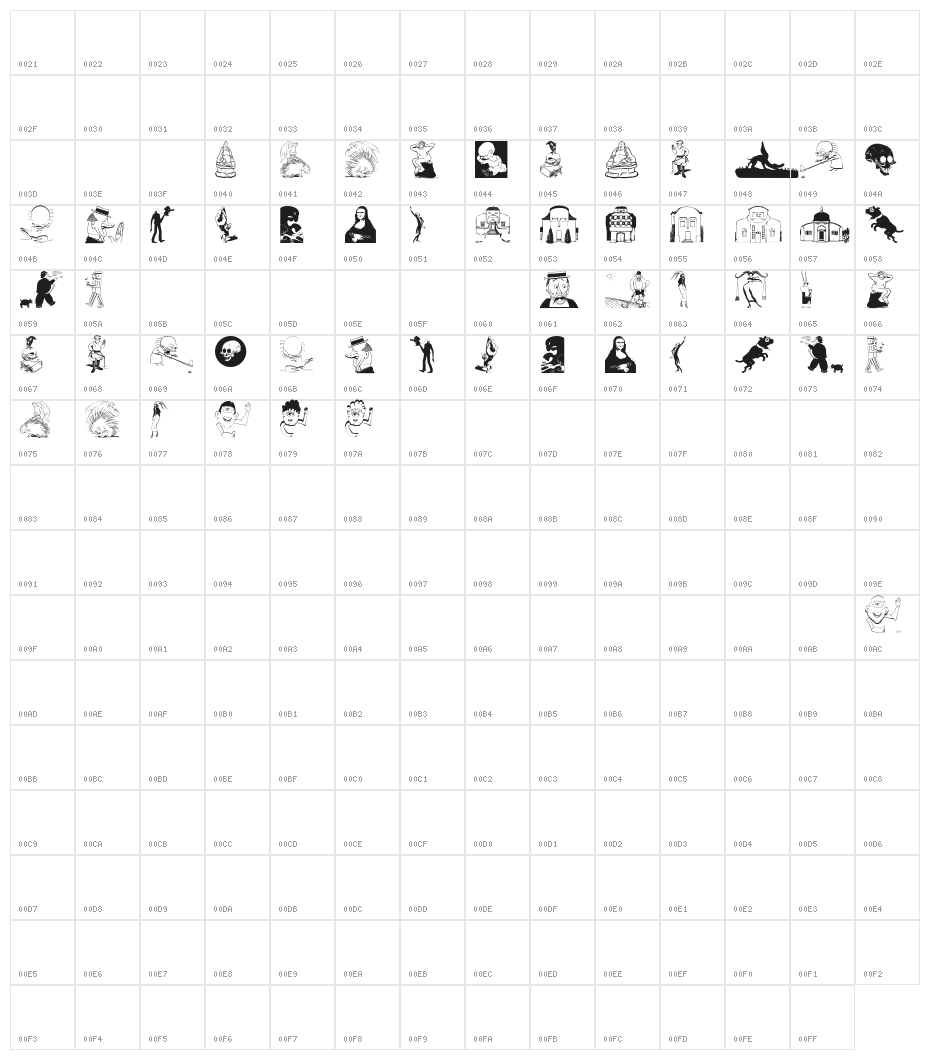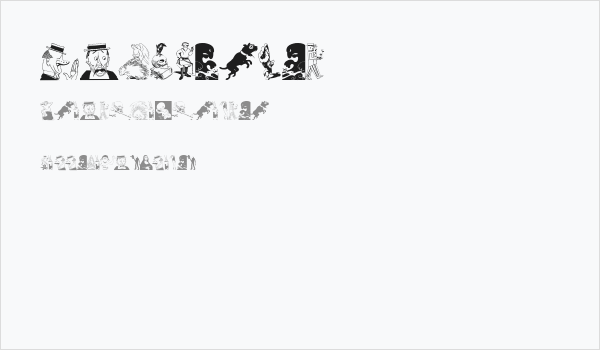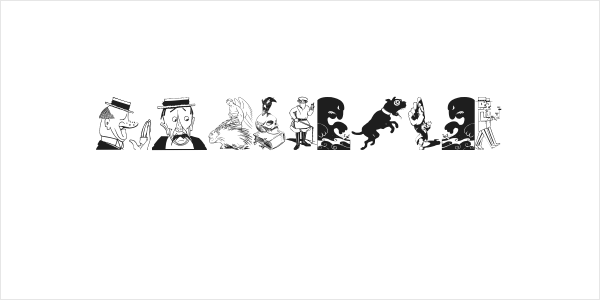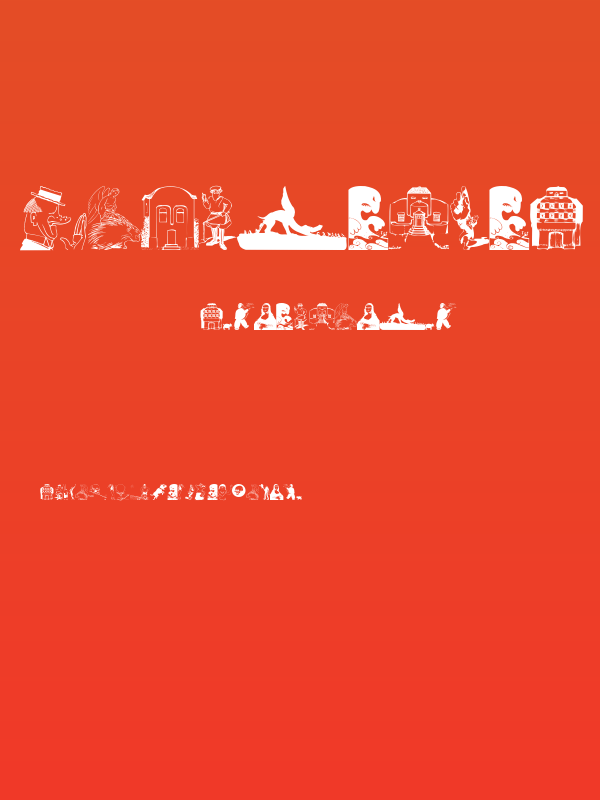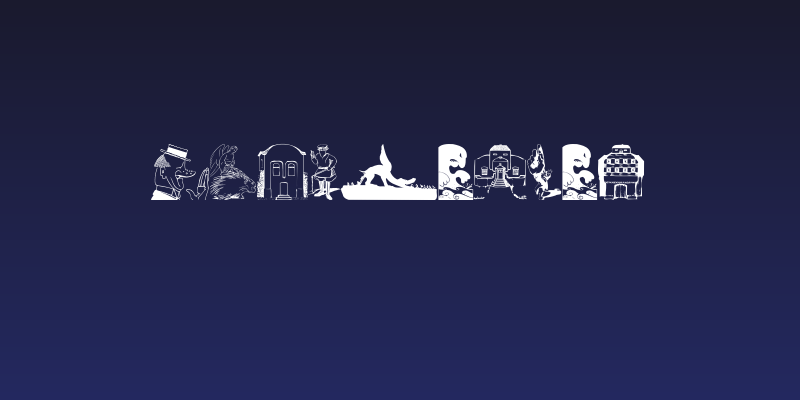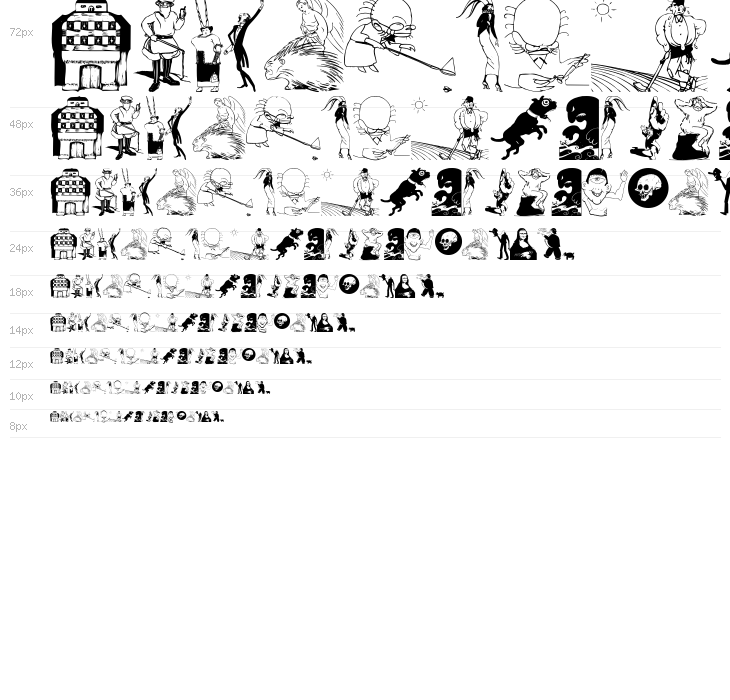
LaughOrNot Font
LaughOrNot Description
A highly decorative and whimsical collection of illustrated characters and scenes, each glyph representing a unique cartoon or caricature rather than traditional letterforms. The style is playful, with exaggerated expressions and humorous situations, rendered in black and white line art.
Overall StyleWhimsical, Playful, Cartoonish, Decorative
Use CaseDisplay, Themed headlines, Posters, Invitations, Comics
Proposed ProjectsChildren's books, comic strips, party invitations, novelty posters, humorous branding.